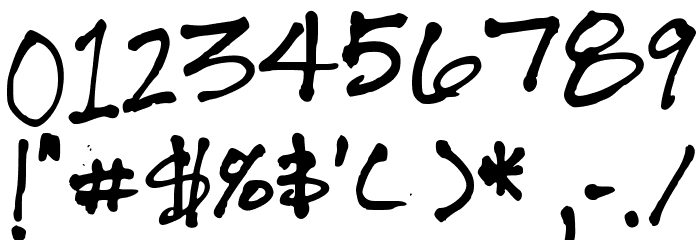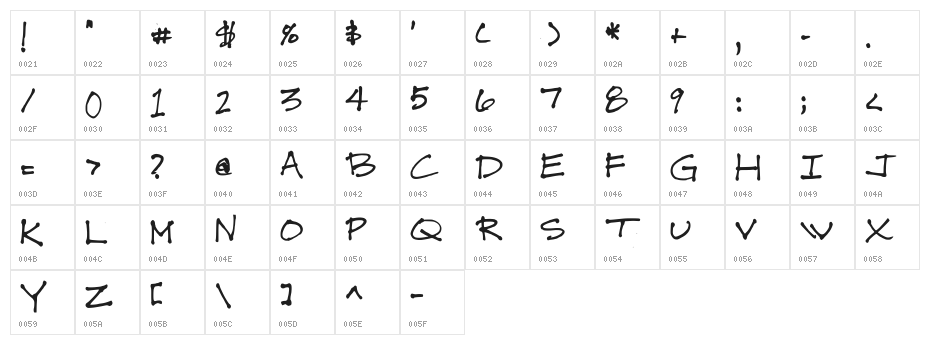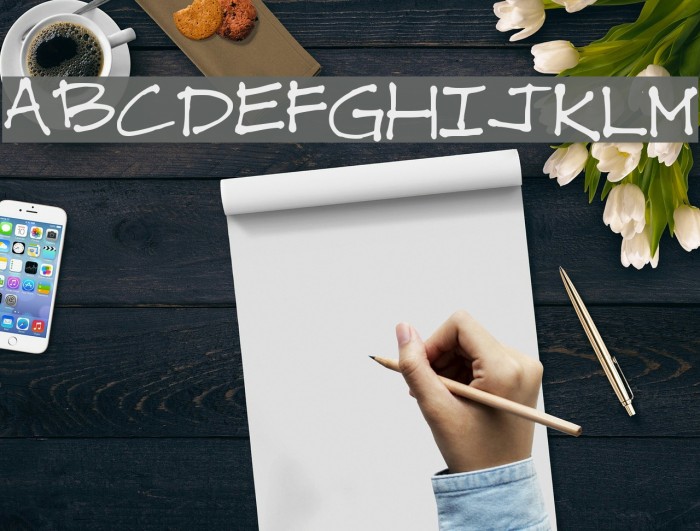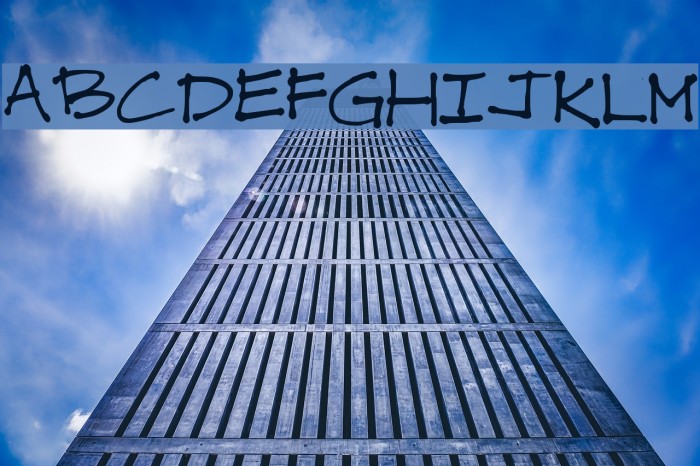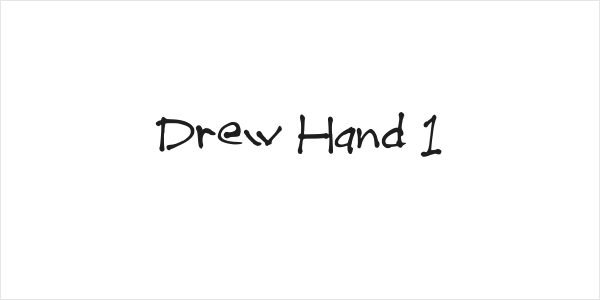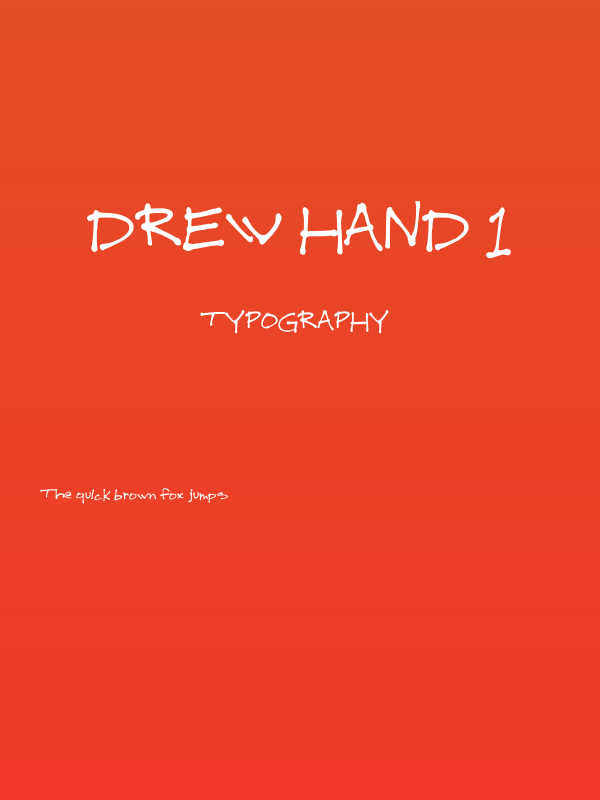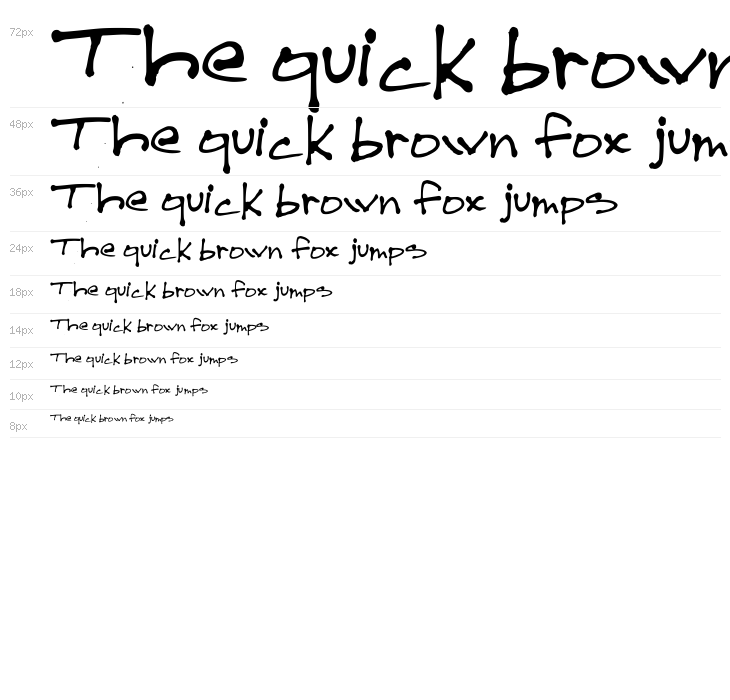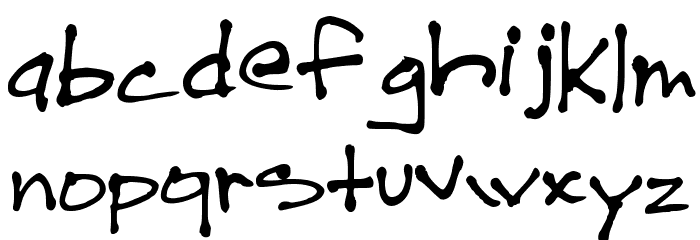
Drew Hand 1 Font
Drew Hand 1 Description
This font exudes a playful and casual handwritten style, characterized by its irregular strokes and organic flow. The letters vary in size and angle, giving it an authentic, hand-drawn appearance. The uppercase and lowercase letters maintain a consistent style, with rounded edges and a slightly uneven baseline, enhancing its informal charm. Numbers and special characters follow the same aesthetic, ensuring a cohesive look across all glyphs. This font is ideal for projects that require a personal touch, such as greeting cards, invitations, or creative branding materials. Its unique style captures attention while remaining legible and approachable.
| Proposed Projects | Ideal for greeting cards, invitations, creative branding, and personal projects. |